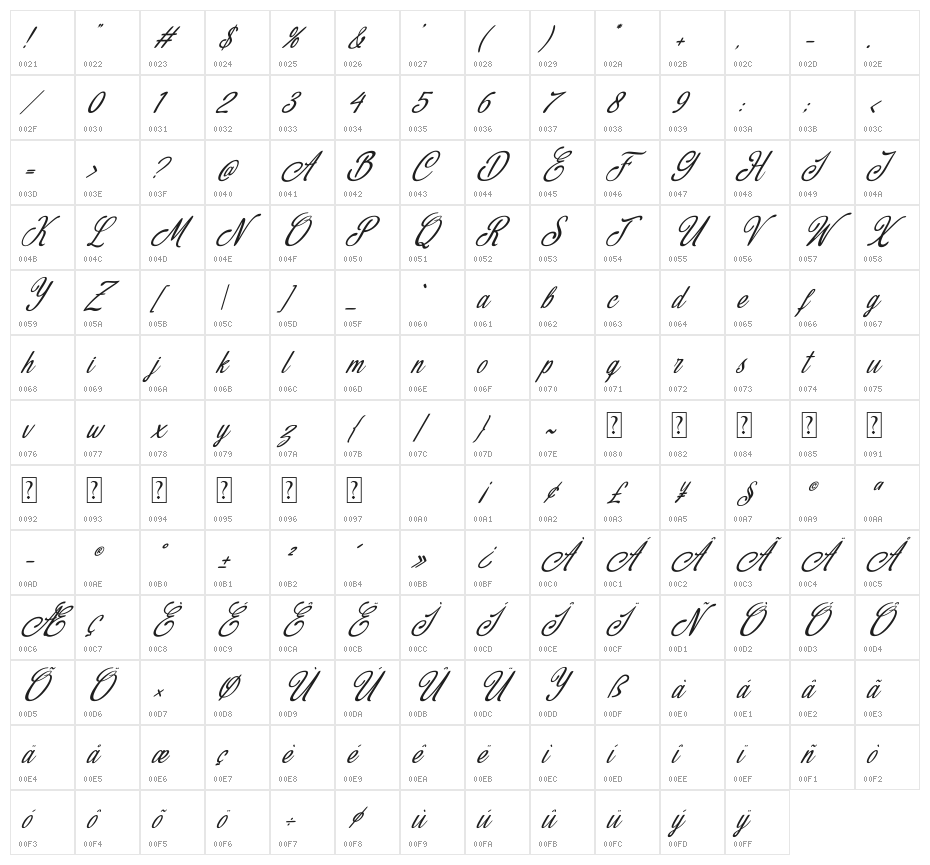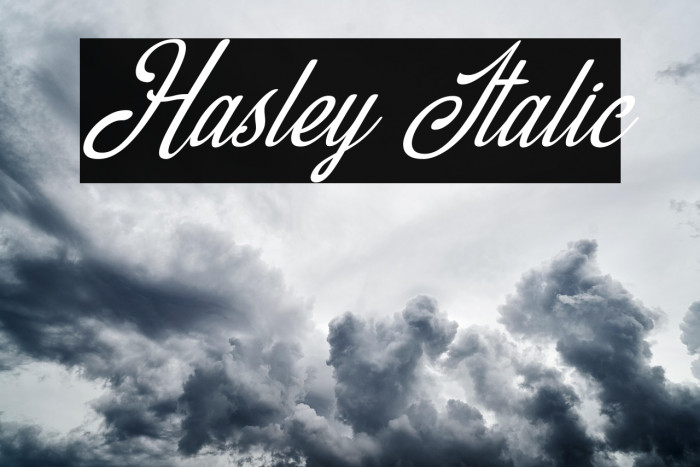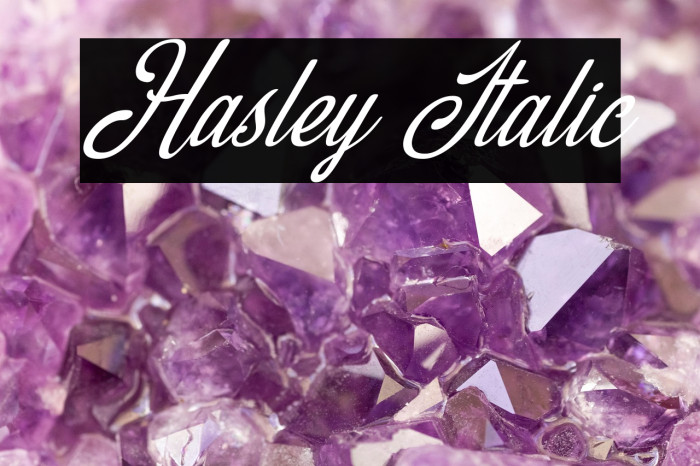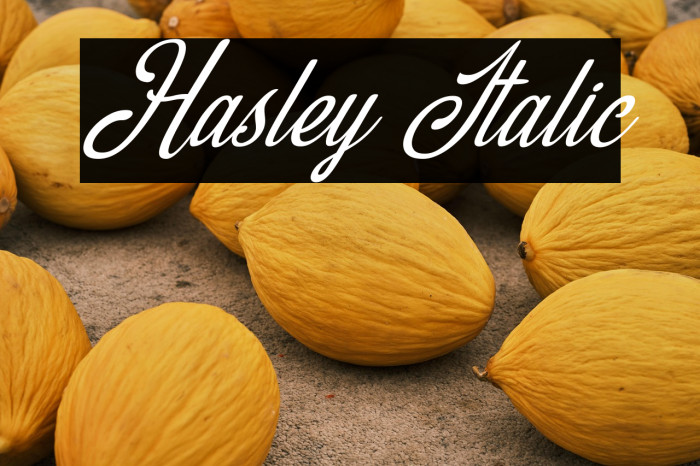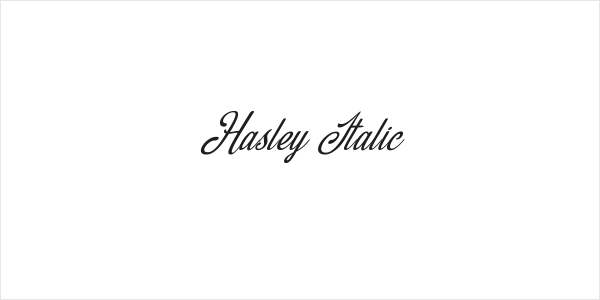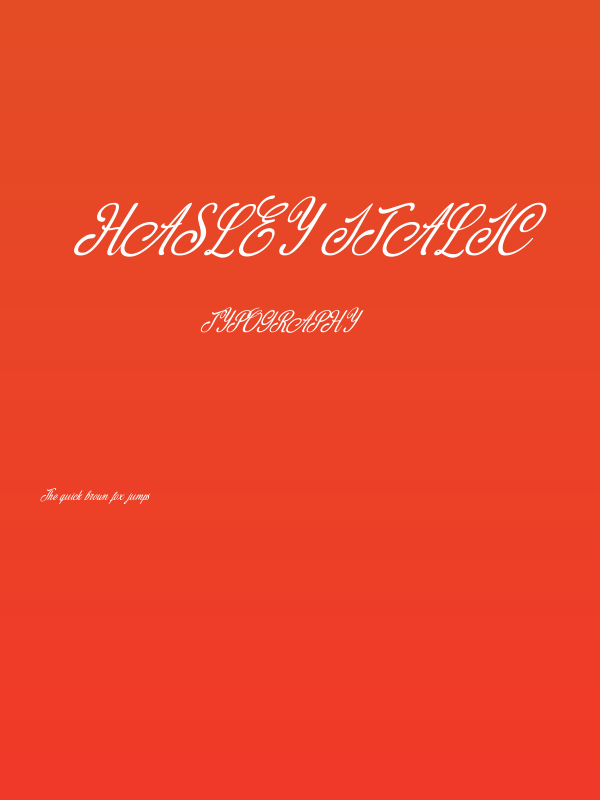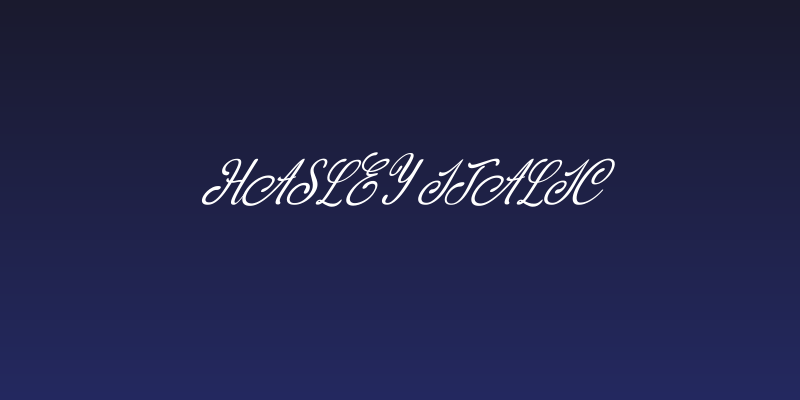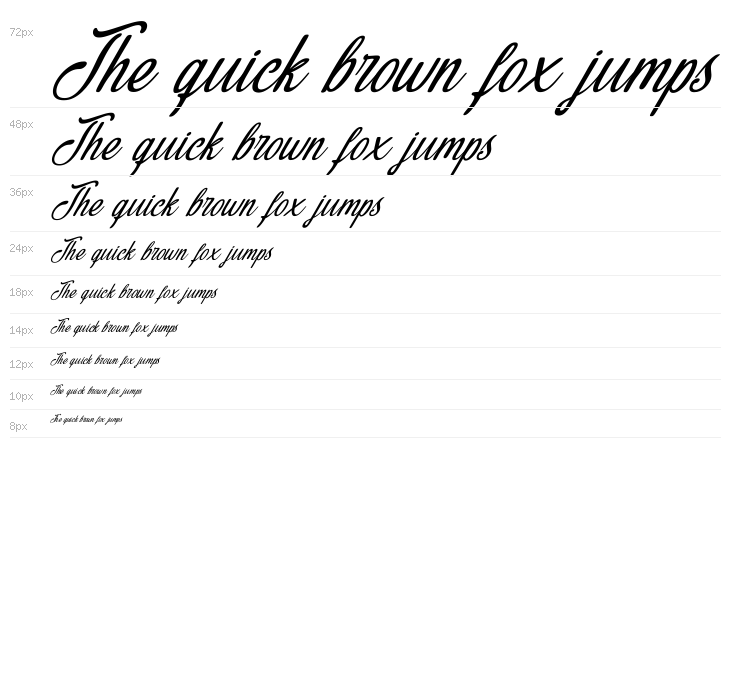
Hasley Italic Font
Hasley Italic Description
This font features an elegant and flowing script style, characterized by its cursive, italicized letters. The strokes are smooth and connected, giving it a handwritten appearance. The uppercase letters are ornate, with elaborate loops and swirls, while the lowercase letters maintain a consistent flow, enhancing readability. The numerals and special characters are designed to match the overall aesthetic, with a graceful and sophisticated look. This font exudes a sense of elegance and formality, making it suitable for various decorative purposes.
An elegant, cursive script font with flowing, italicized letters from Regular fonts.
- Proposed Projects: Ideal for wedding invitations, greeting cards, elegant branding, and formal event materials.
- Overall Style: Elegant, Decorative
- Use Case: Logos, Invitations, Decorative text